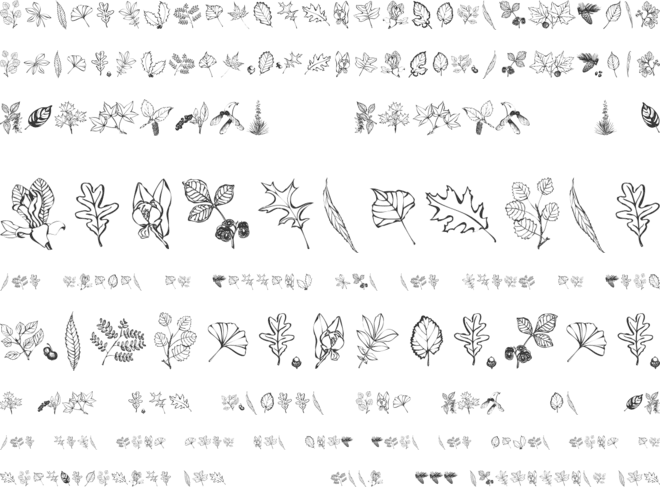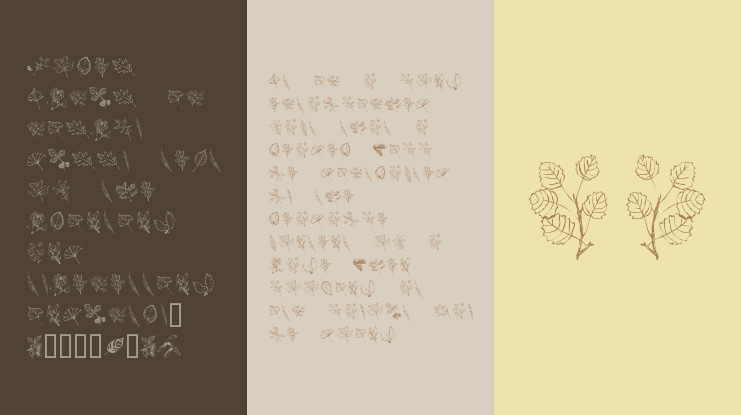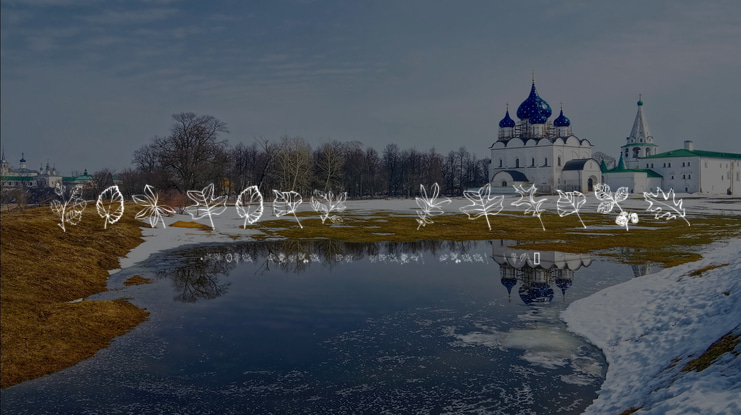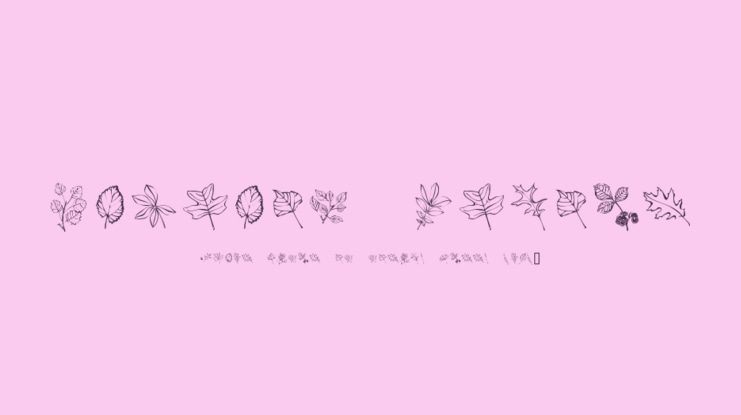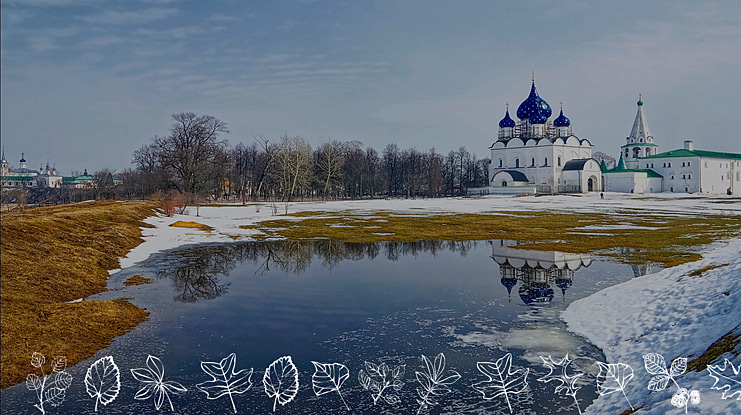
Last Autumn, my friend Ruthi in upper New York, my friend Dave in Ontario, and I in Provo, UT, had an argument about fall leaves; the result was obvious -- Utah has the most spectacular leaves, mostly.
Just a couple of weeks ago, the deciduous trees near the timberline (or at least the ones pretty high up) began to change color, turning the mountain peaks a crimson orange. Then, slowly, the color began to move through the scrub oak down the mountains. Next week, the august Silver Maple in our neighbors yard will begin to drop its paper-like leaves, and the apple trees in our backyard will release its unpicked fruit, primed for apple pie.
ArborisFolium is a TrueType font, created by a couple who obviously spends too much time in the hills (or dreaming about being there). The font boasts 34 original drawings (68 total characters) by us (Lise and Andrew, though Lise drew most of them). We've tried to display a wide variety of leaves from both shrubs and trees; most of the foliage flourishes in the Rocky Mountain region. For the most part, we've stuck to single leaf examples from each type of tree (or bush), but there are exceptions: often, a single leaf would not do, since many are found only in clusters; we've also included some nuts.
These leaves are, on the whole, pretty darn good examples; a lot of work has gone into this baby. From its conception one and a half years ago, Lise and I have spent time selecting samples from separate botanical families and genera, penciling and inking the characters, scanning them, converting the work from TIFF to EPS with paths, cleaning up the lines and fixing splines, importing them to the font file, adjusting and recalculating bitmaps, cutting out the overlap, fixing the sizes of each character, futzing with the metrics, and so on. Most of the leaves print nicely from 8 to 151 points on a LaserWriter Select at 600 Dpi. (8 point is pretty darn small, however.)
AborisFolium Legend
CAPS & Smallcaps:
A Trembling Aspen
B Buckeye
C Chestnut
D Ginko
E Gumbell's Scrub Oak
F Hickory
G Holly
H Honey Locust
I Lombardy Poplar
J Silver Maple
K Swamp White Oak
L Pin Oak
M Red Oak
N Sweet Bay
O Tulip Tree
P Umbrella Tree
Q White Mulberry
R White Mulberry 2
S Crab Apple
T Crack Willow
U Hop Tree
V Buttonwood
W Limber Pine
X Paper Birch
Y Weeping Willow
Z Three-Leaf Sumach
Numbers & Stuff:
1 Hornbeam
2 Persimmon
3 Sugar Maple
4 Sweet Gum
5 Birch
6 Chokecherry
7 Maple seeds
8 Yucca